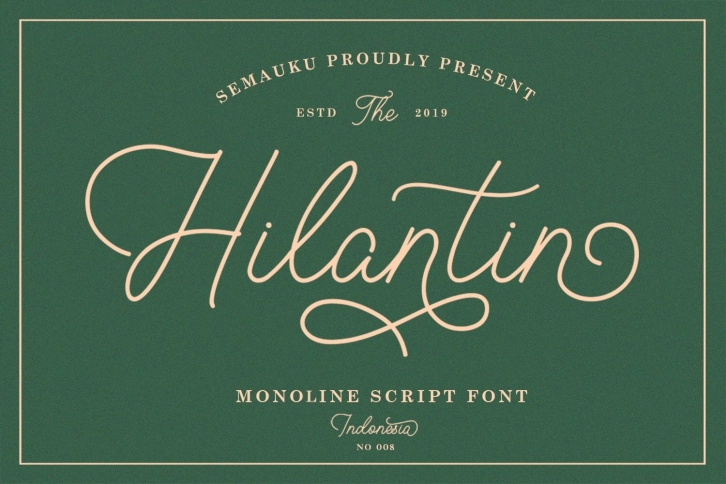
Hilantin is a beautiful font that was designed by Semauku. It's a great choice for designers and creatives who need such a font. It was released on February 13, 2021 and the file size is 11.33 MB. Hilantin may give a more youthful, expressive and casual look to your project. It is a very beautiful, refined, elegant, and high-quality font.